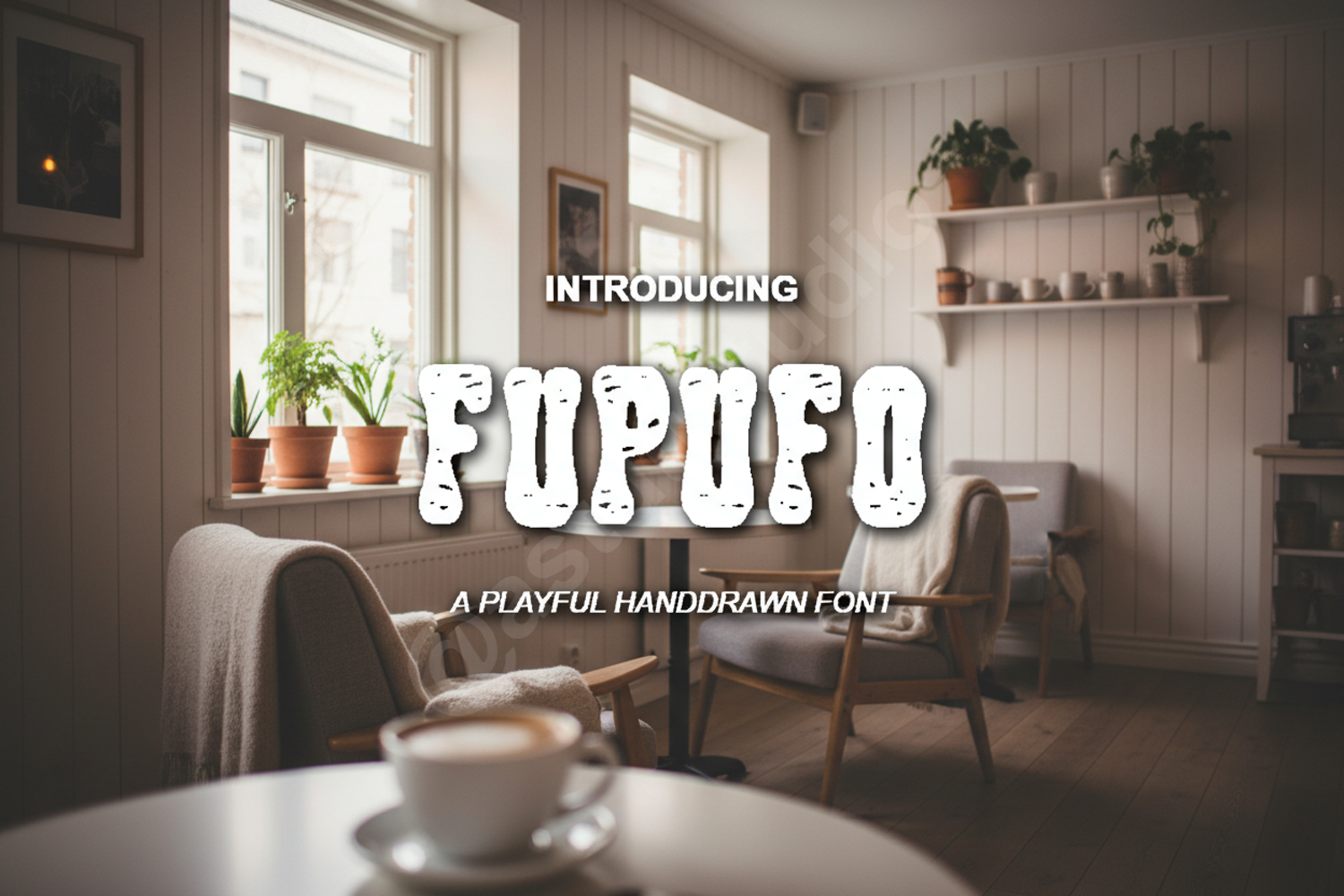
Fupufo - Modern & Bold Geometric Sans Serif
Fupufo
Elevate your creative projects with Fupufo, a premium geometric sans serif font that balances modern aesthetics with exceptional legibility. Designed for creators who demand both style and functionality, Fupufo brings a unique personality to every character, making it a standout choice for contemporary design work.
- Full uppercase and lowercase character sets
- Comprehensive numbers and punctuation
- Multilingual language support